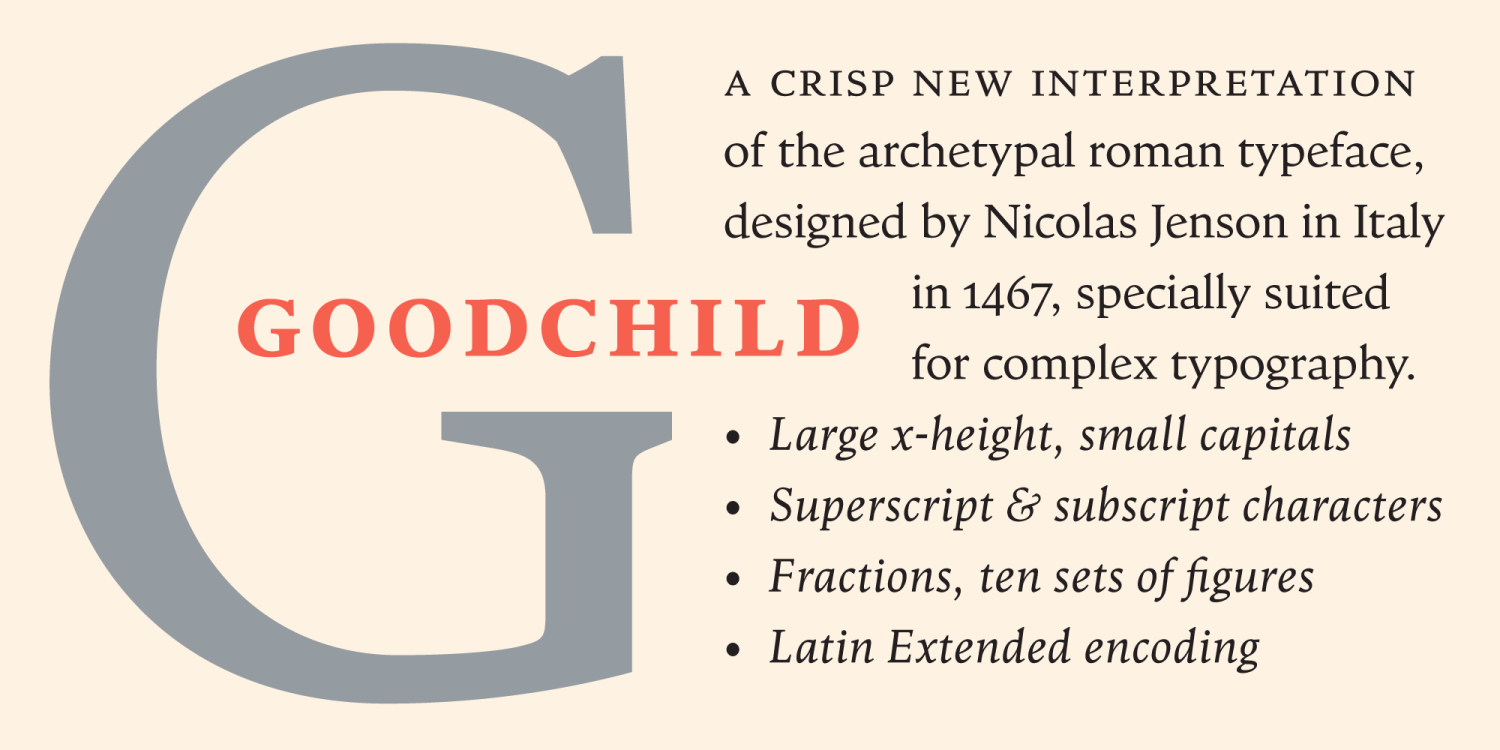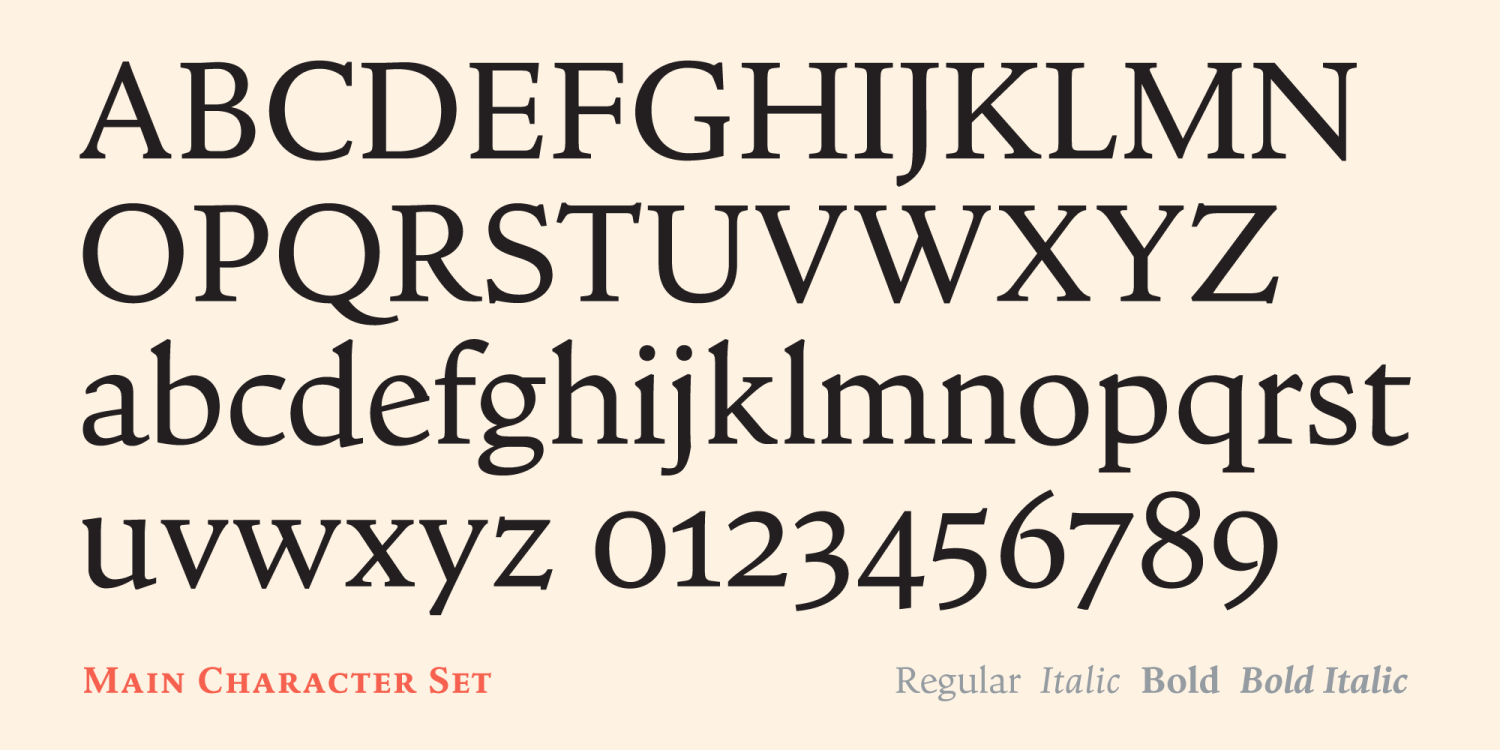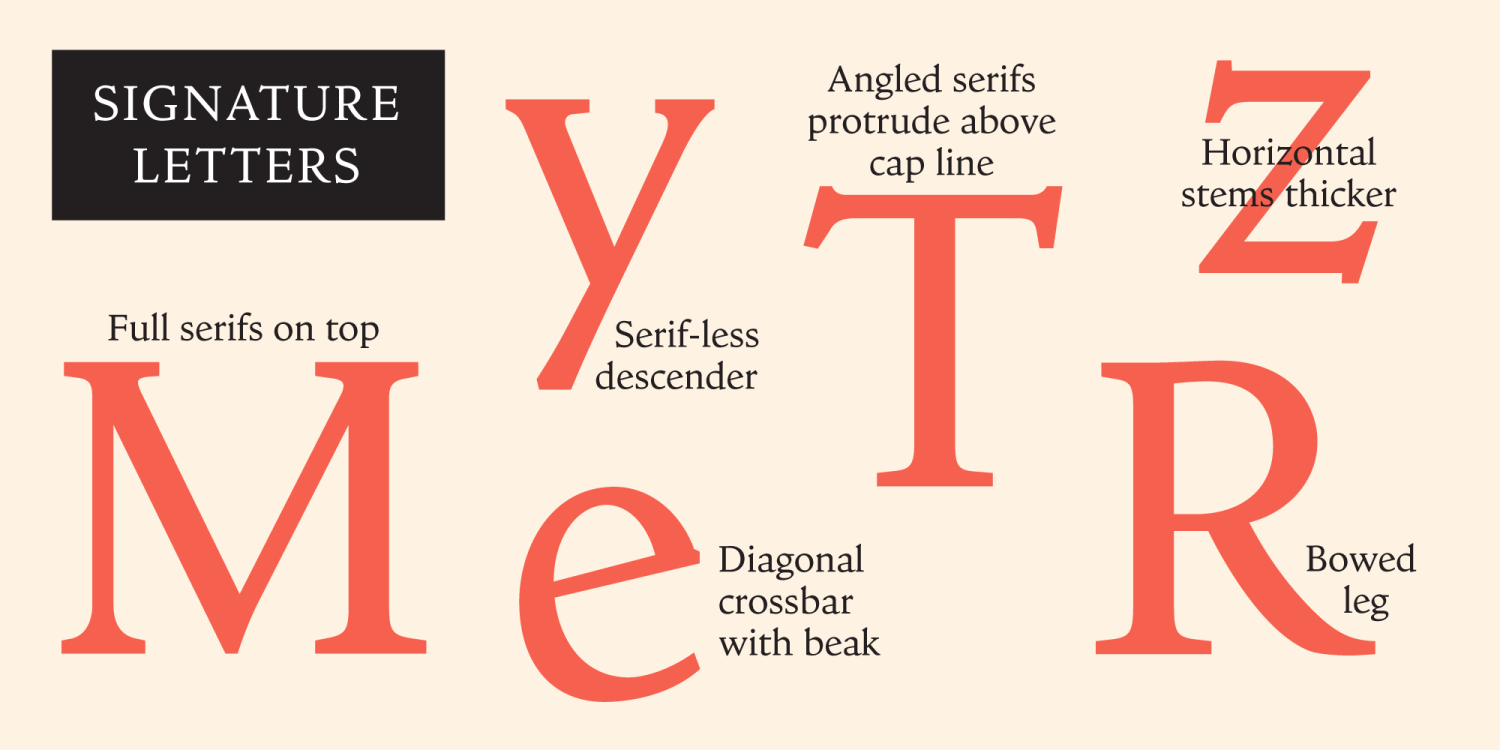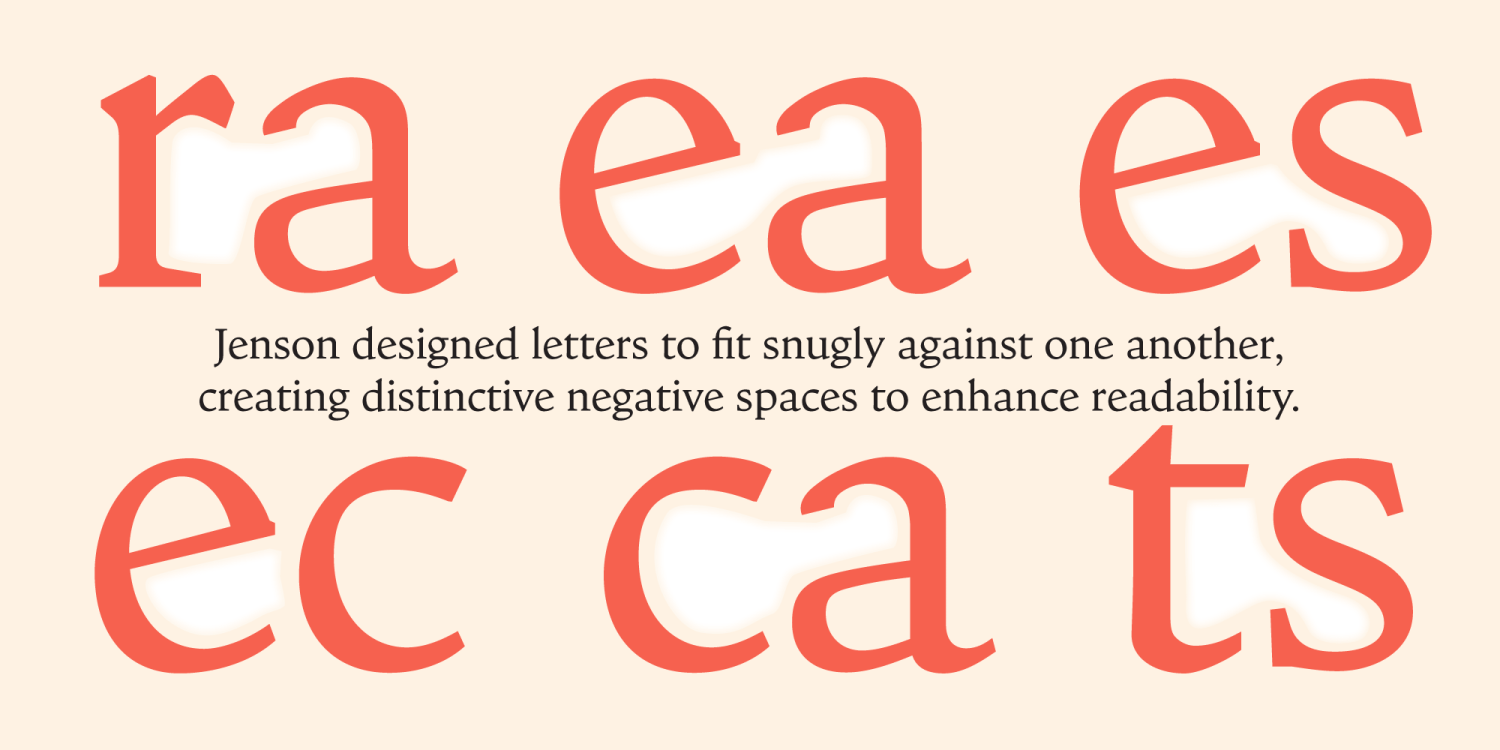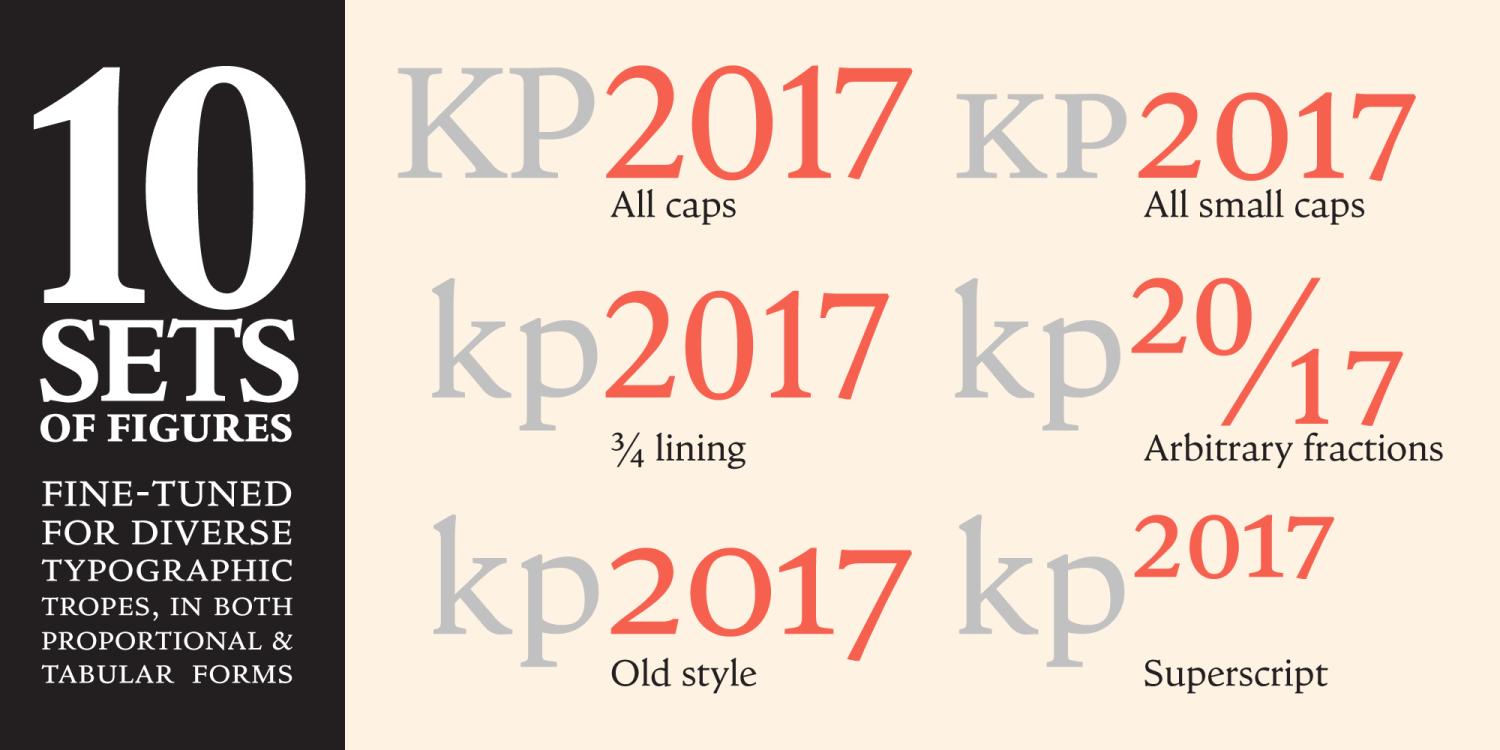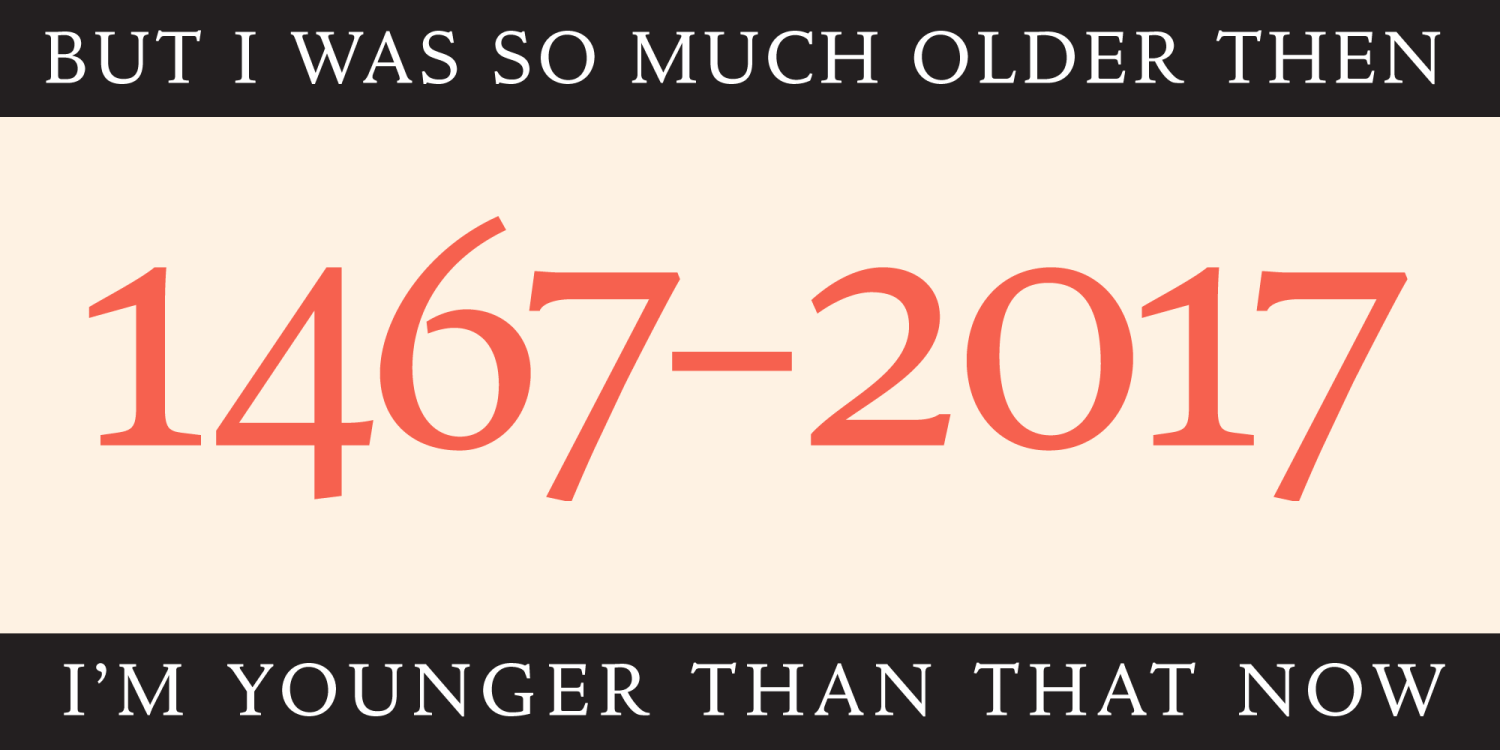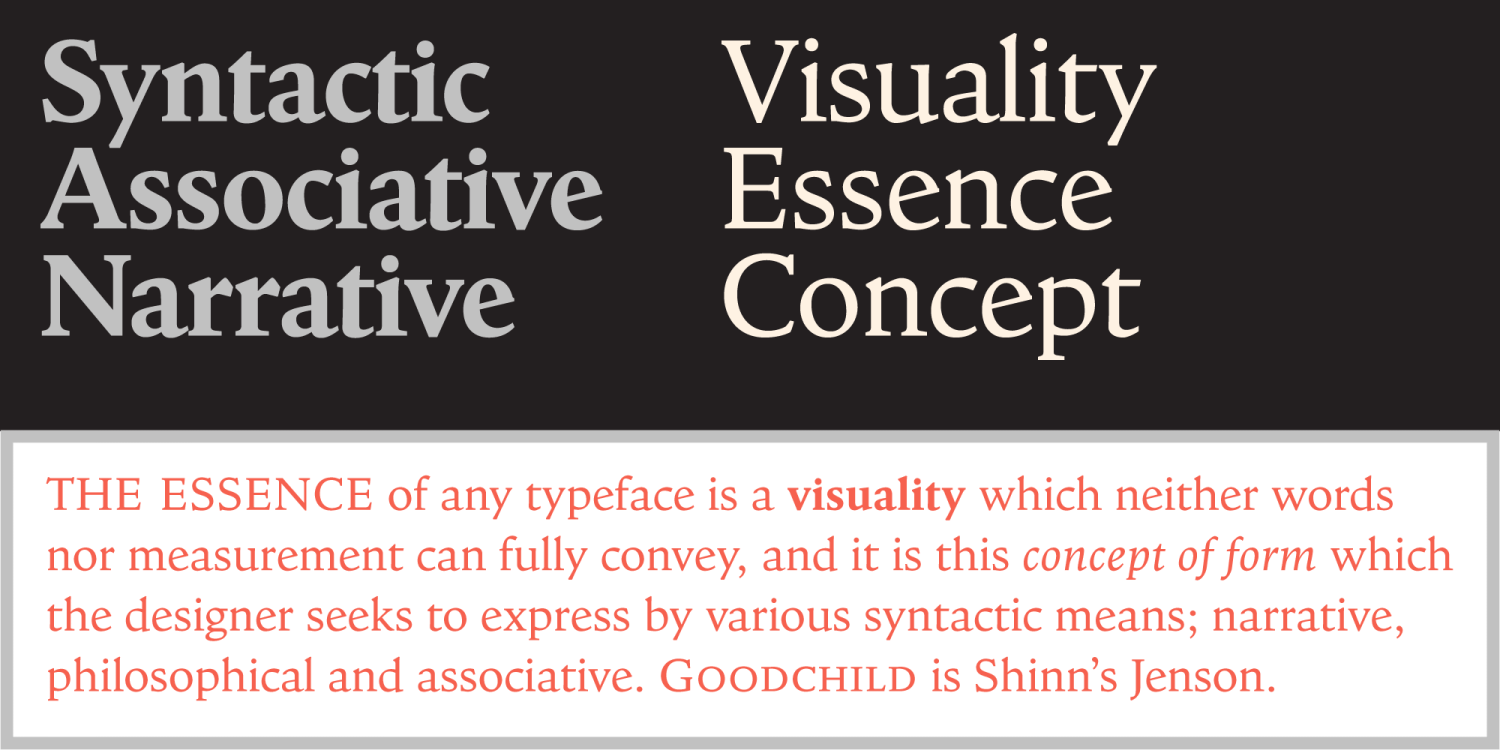
HomeFont BrosSerifGoodchild Serif Goodchild FacebookXPinterestWhatsApp 1 of 8 About Goodchild is a robust Jenson revival with large x-height and short capitals that make it a workhorse for text setting. At display size, its crisp, no-nonsense details provide a contemporary freshness.  DOWNLOAD NOW People also explored Hey Christmas Font Tension Font Hamilton Font Hiallia Font Sensational Font Sperow Font Filmotype Yale Heaven Dream Font Coffee Tables Script Font 223 0 TagsGoodchild Font Previous articleQuahog BBNext articleSirenia LEAVE A REPLY Cancel reply Comment: Please enter your comment! Name:* Please enter your name here Email:* You have entered an incorrect email address! Please enter your email address here Website: Save my name, email, and website in this browser for the next time I comment. Personal Use Free Little Pigeon Personal Use Free Read more about this font Drip October Font Personal Use Free Read more about this font Little Things Duo Personal Use Free Read more about this font Aseline Personal Use Free Read more about this font BLOG Fonts That Capture the Spirit of New York City New York City is more than just a place—it’s an experience, a rhythm, a visual language... How to Install and Use Fonts on Windows, macOS, and Web Projects Where to Buy American Fonts Online in 2024 Free Fonts Risk: Why Free Fonts Can Be Dangerous for Designers